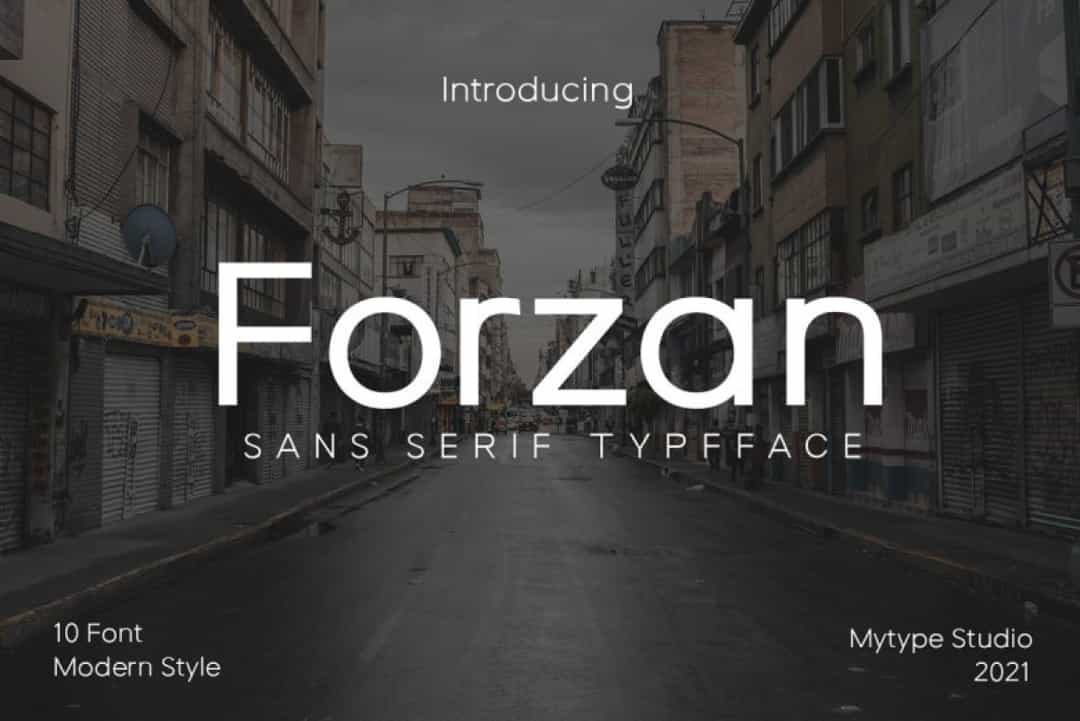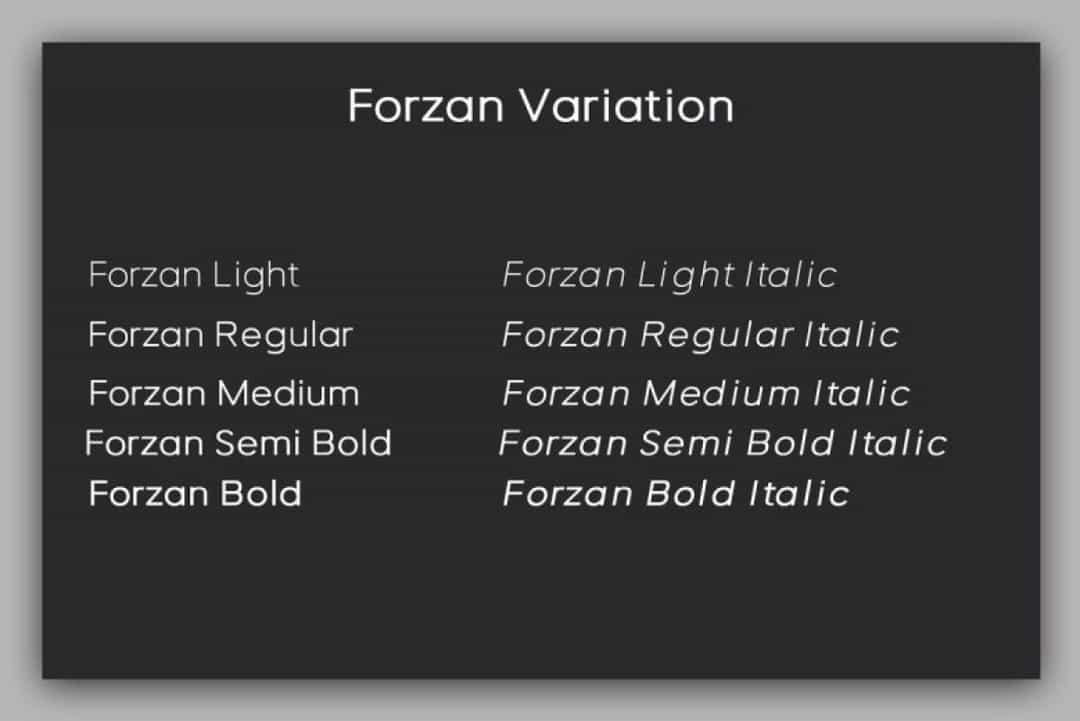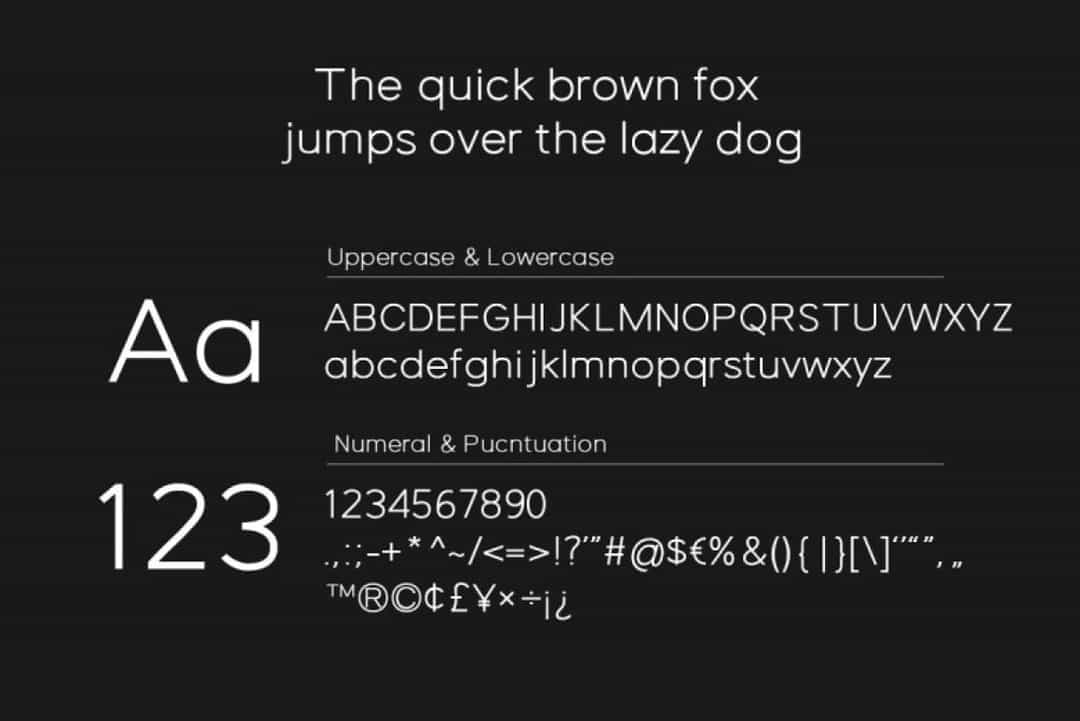
Forzan is an elegant sans-serif font with natural movement that gives any project a timeless charm. Perfect for logos, branding wedding designs and advertisements, social media posts packaging of products for sale social media posts packaging of products designs labels photo watermark invitations stationery projects stationery Forzan is perfect!